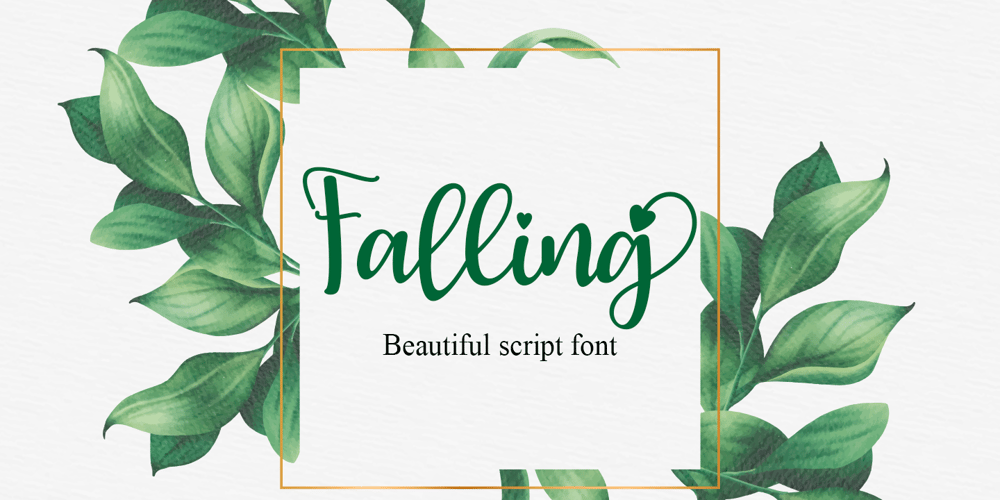
Falling Font Family was designed by Arief Tri Sulistiyono and published by Supersemarletter. Falling contains 1 styles and family package options. Falling is an exquisite handwritten font, masterfully designed to become a true favorite. It maintains its classy calligraphic influences while feeling contemporary and fresh. Fall in love with it and bring your projects to the highest levels! Provide Ligatures and alternates with special character make the design letters looks incredible.Honestly it works perfectly for headlines, logos, posters, packaging, T-shirt and much more.Font Features : Regular Version Character set A-Z in Uppercase and Lowercase Ligatures in lowercase and special Alternate option Numerals and Punctuation Accented Characters Multiple Languange Supported Recomended to use in Adobe Illustrator or Adobe Photoshop with opentype feature.If you have any questions, just send me a message and I’m glad to help.Best RegardsSupersemar Letter